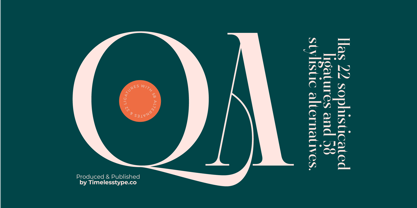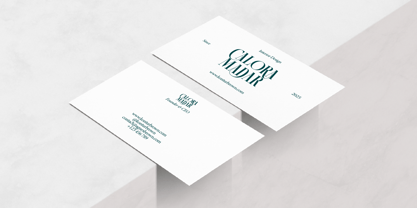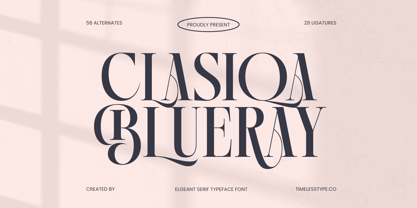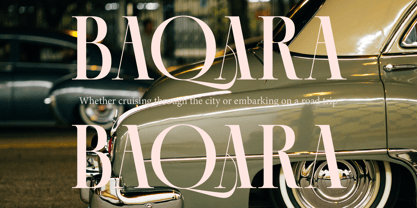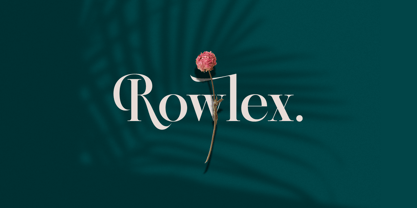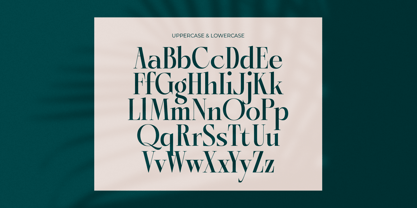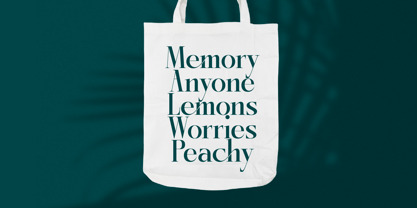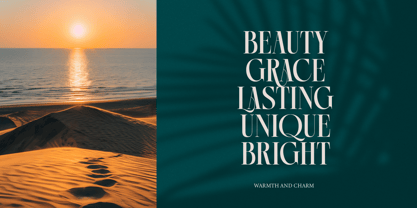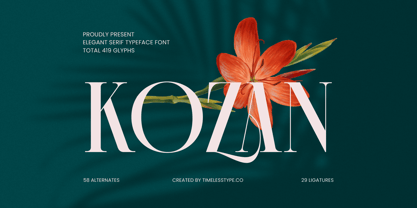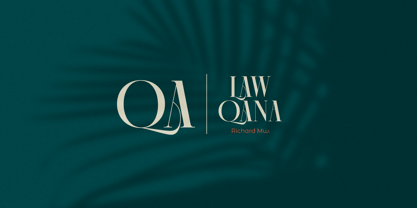
The Kozan Font Family was designed by Heru Utama Putra and published by Timelesstype Studio. Kozan contains 2 styles and family package options. More about this family
Kozan - Elegant Serif Typeface Font , Suitable for any projects such as: logos, branding projects, homeware designs, product packaging, mugs, quotes, posters, shopping bags, t-shirts, book covers, name card, invitation cards, greeting cards, label, photography, watermark, special events, and all your other luxury and beautiful projects that need a Luxury Serif taste.